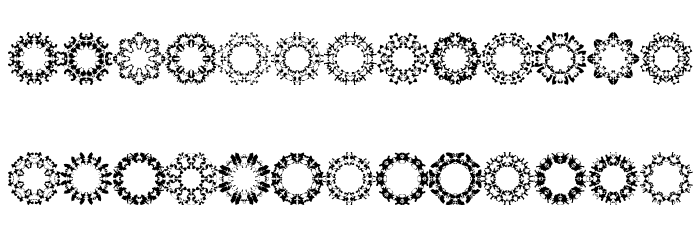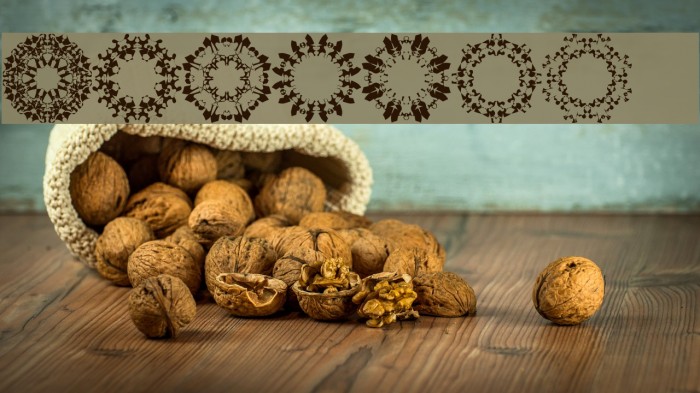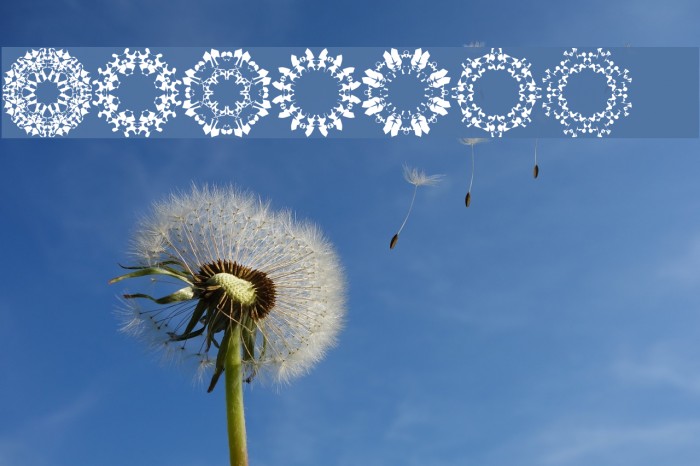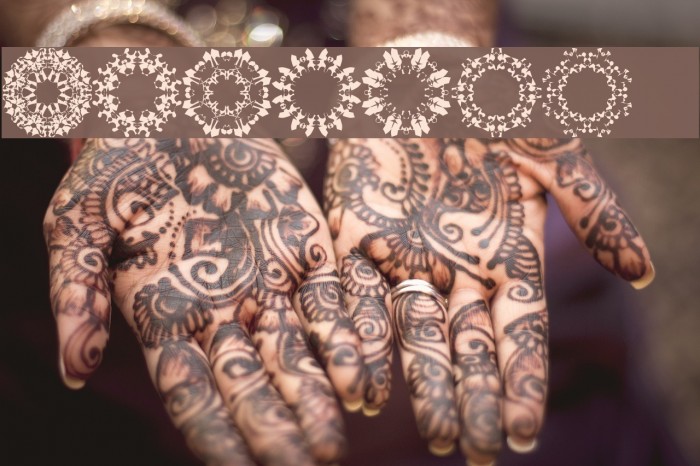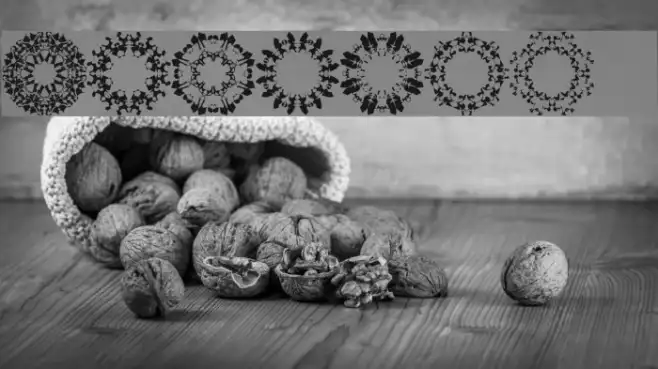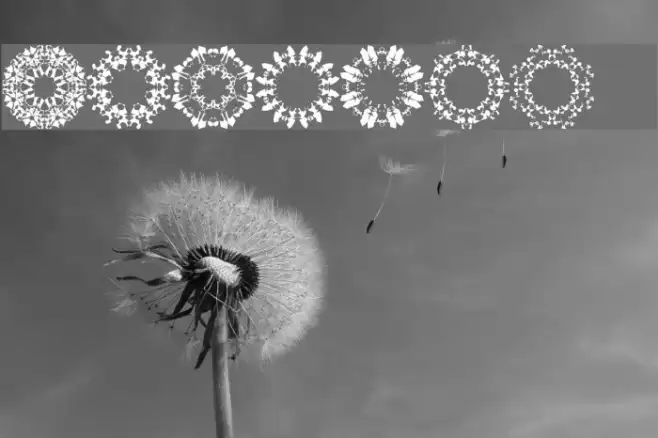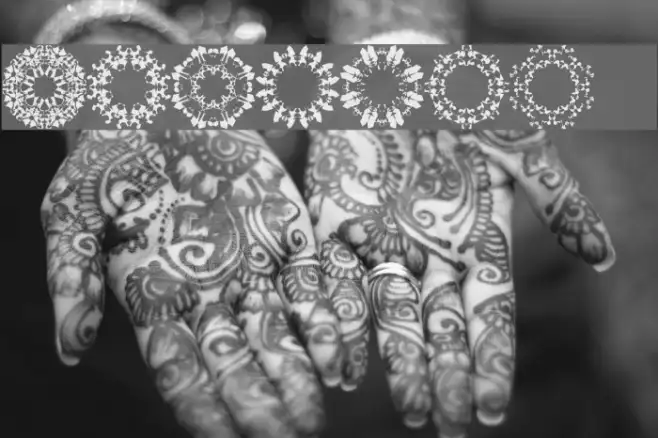
LaMorte10 Font
This decorative font features intricate, circular designs that resemble ornate snowflakes or mandalas. Each character is uniquely crafted with detailed patterns, making it ideal for artistic and creative projects. The font's elaborate style is visually striking, with each letter and symbol appearing as a standalone piece of art. Its complexity and ornamental nature make it unsuitable for body text but perfect for decorative purposes where visual impact is desired.
An intricate, decorative font with ornate, circular designs.
- Proposed Projects: Ideal for use in artistic projects, invitations, posters, or any design requiring a decorative and unique typeface.
- Use Case: Logos, Headlines, Artistic projects